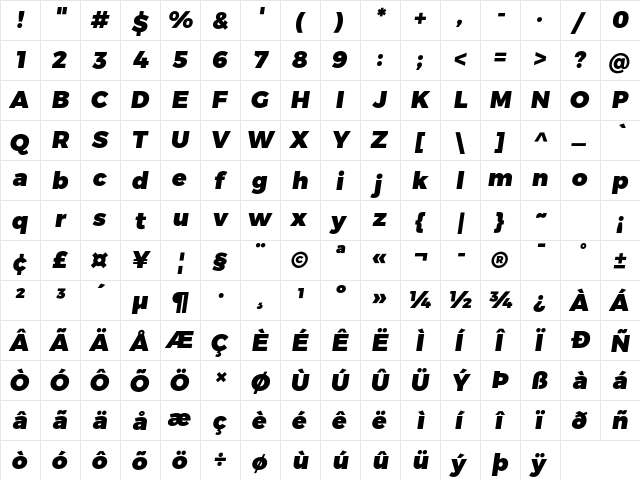
Trueno Black Italic
Design Context for Trueno Typeface
Trueno is a composed and adaptable typeface that performs quietly and consistently across a wide range of design contexts. The dynamic lean of this cut emphasises speed and emphasis in any layout.
Pro Tip: Try Trueno for annotation and caption copy alongside an upright companion — the contrast in angle creates a dynamic but ordered typographic system.